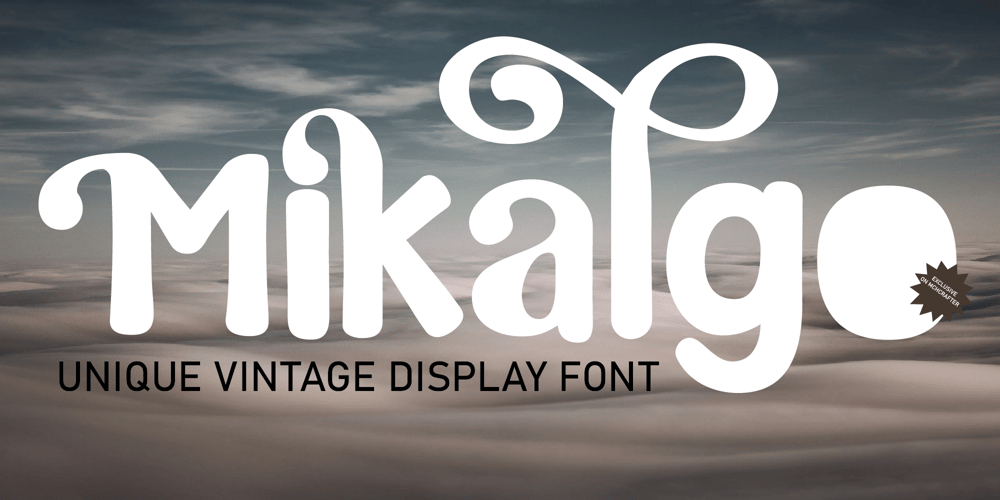
Mikalgo
Mikalgo font
Mikalgo Font Family was designed by El Mehdi CHOUYOUKH and published by Mchcrafter. Mikalgo contains 1 styles and family package options. Mikalgo Font: Retro Serif Display TypefaceIntroducing Mikalgo, a retro serif typeface crafted specifically for branding needs. Designed with unique ligatures and alternate characters, this font adds a distinctive touch to any project, making it perfect for designers and product owners seeking a stylish and contemporary look.Features of Mikalgo Font:· Complete Character Set: Includes all uppercase and lowercase letters.· Numerals and Punctuation: Covers all numbers from 0-9 and essential punctuation marks.· Ligatures and Alternates: Offers extra ligatures and alternate characters for unlimited creative variations.· Symbols and Multilingual Support: Contains various symbols and supports multiple languages.You’ll receive these files in a single convenient ZIP folder.Elevate your designs with Mikalgo, the perfect blend of modern elegance and versatility. Download now and make your projects stand out!